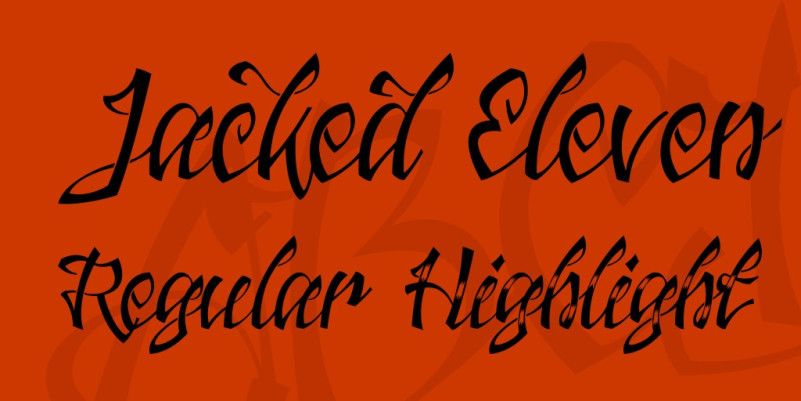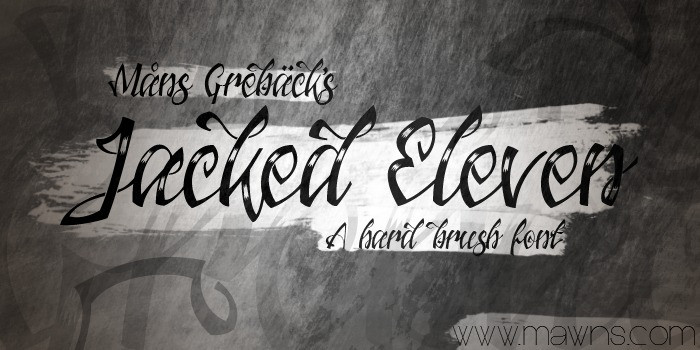
Jacked Eleven Font
Jacked Eleven Script Font,  Perfectly fit for branding, logo, wedding things, greeting cards, fashion, lookbook, marketing promotion, anytime you want to look fancy elegant but still casual.